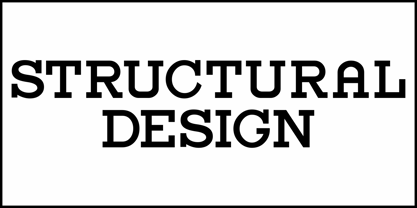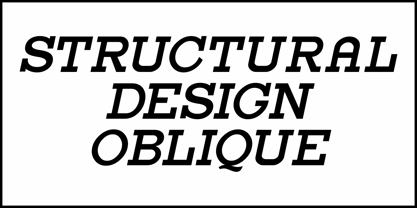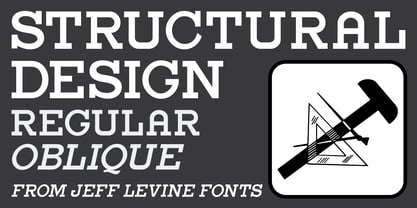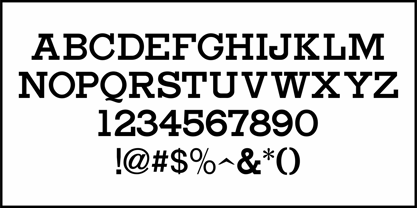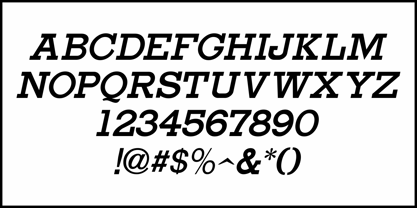
Structural Design JNL
by Jeff Levine
The Structural Design JNL Font Family was designed by Jeff Levine and published by Jeff Levine. Structural Design JNL contains 2 styles and family package options.
Various headlines in the 1937 Film Daily Year Book of Motion Pictures utilized a fairly-new slab serif design called Rockwell.
Structural Design JNL is Jeff Levine Fonts' version of this utilitarian type design, and is available in both regular and oblique versions.
According to Wikipedia: "Rockwell is a slab serif typeface designed by the Monotype Corporation and released in 1934. The project was supervised by Monotype's engineering manager Frank Hinman Pierpont."
There is an alternate 'A' on the lower case 'a' key, as well as a second alternate 'A' on the vertical bar key.